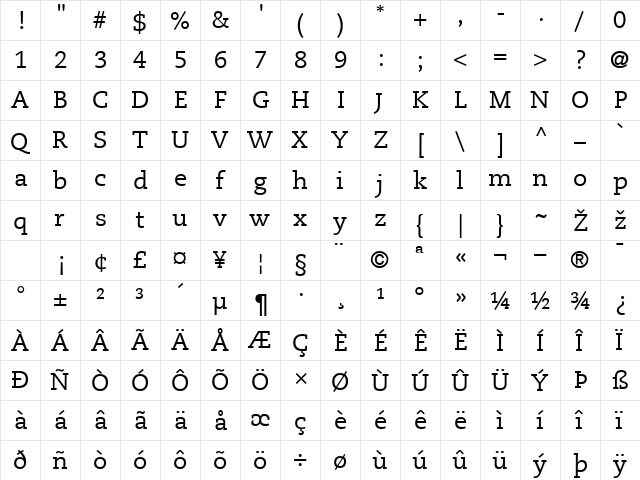
Caecilia LT Roman Regular
Design Context for Caecilia LT Roman Typeface
Caecilia LT Roman offers clean, dependable letterforms without strong stylistic allegiance, making it a practical choice for designers who need flexibility. Its slender proportions lend an understated elegance to any composition.